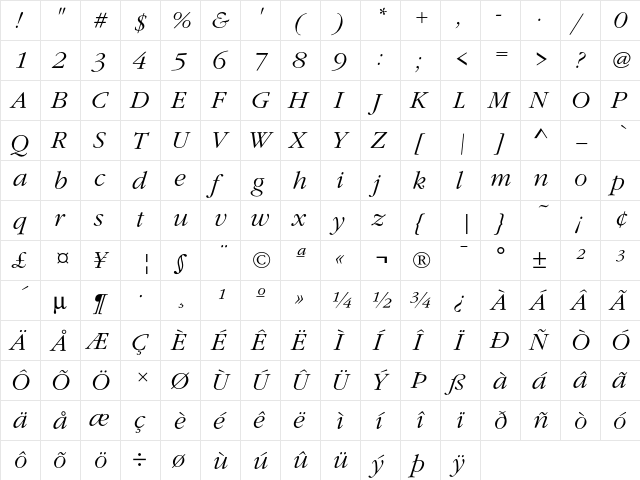
GaramItcTLigIta Regular
Design Context for GaramItcTLigIta Typeface
GaramItcTLigIta offers clean, dependable letterforms without strong stylistic allegiance, making it a practical choice for designers who need flexibility.
Pro Tip: Use GaramItcTLigIta in both headline and body roles to test its range before committing to a single application.